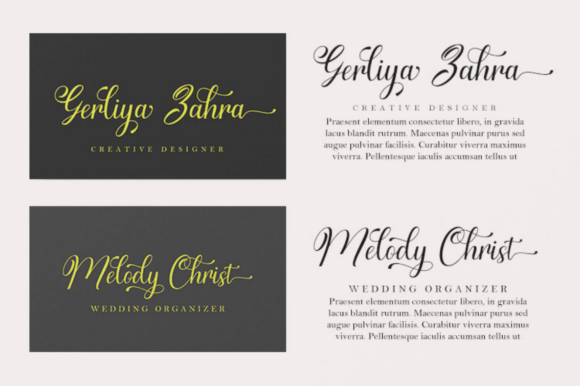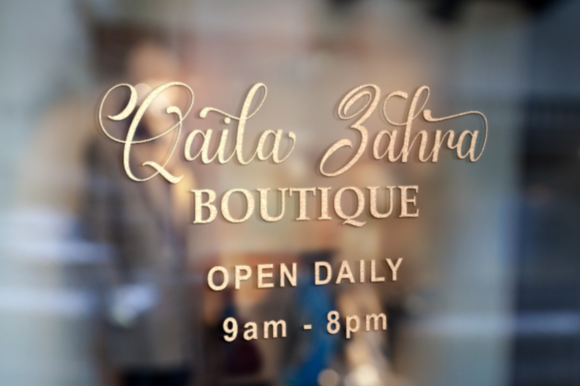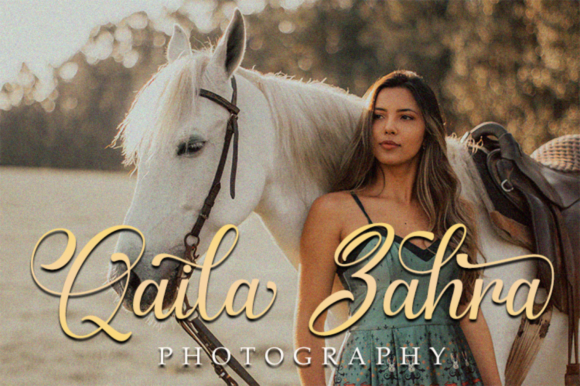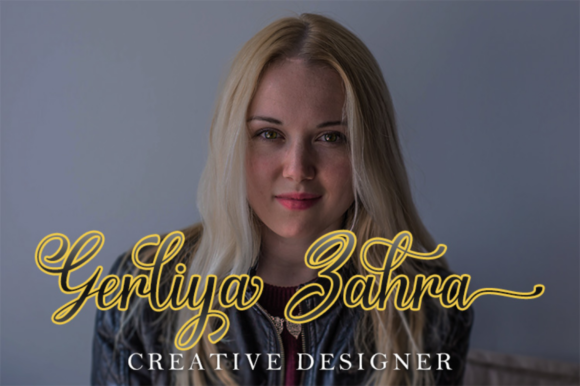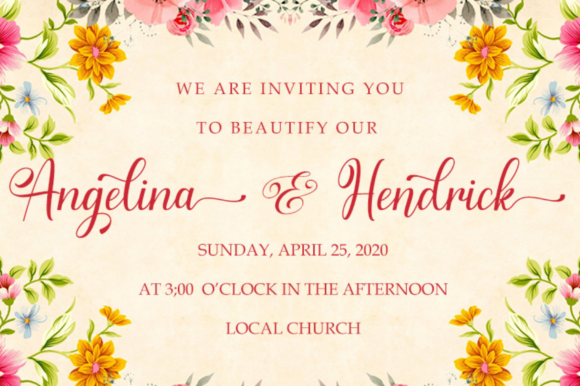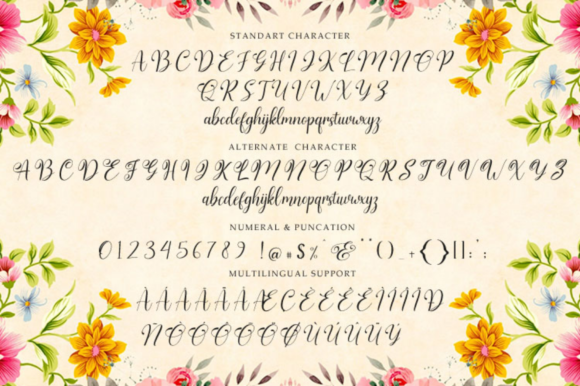
Introducing Gerliya Font: Elevate Your Designs with Timeless Elegance
In the world of typography, a beautiful script font can make all the difference in elevating your designs from ordinary to extraordinary. Gerliya Font is a stunning script font that embodies the perfect blend of classic calligraphy and modern sophistication. Inspired by timeless classic calligraphy, Gerliya Font is designed to bring an air of elegance and refinement to your projects.
The Perfect Balance of Form and Function
Gerliya Font boasts a contemporary atmosphere and impeccable form, making it an ideal choice for designers and crafters seeking to add a touch of sophistication to their work. What sets Gerliya apart is its perfect balance of thickness and thinness, creating a visually appealing and harmonious look. Not too thin and not too thick, Gerliya’s balanced and varied strokes bring a sense of nuance and depth to your designs.
Key Features of Gerliya Font
- Beautiful Script Font: Gerliya Font is a gorgeous script font that exudes elegance and refinement, perfect for a wide range of design applications.
- Contemporary Atmosphere: With its modern take on classic calligraphy, Gerliya Font brings a fresh and contemporary feel to your designs.
- Impeccable Form: Gerliya’s precise and meticulous design ensures that every letter and stroke is perfectly crafted to create a stunning visual effect.
- Balanced and Varied: Gerliya’s balanced and varied strokes add a touch of nuance and depth to your designs, making them more engaging and visually appealing.
Why Choose Gerliya Font?
Gerliya Font is an excellent choice for designers and crafters looking to elevate their designs with a touch of elegance and sophistication. Here are just a few reasons why Gerliya Font stands out:
- Versatility: Gerliya Font is suitable for a wide range of design applications, from branding and advertising to packaging and digital media.
- Easy to Read: Despite its elegant and refined appearance, Gerliya Font remains highly legible, making it perfect for body text and headlines.
- Unique and Distinctive: Gerliya Font’s unique blend of classic and modern elements ensures that your designs stand out from the crowd and leave a lasting impression.
How to Use Gerliya Font in Your Designs
Gerliya Font is incredibly versatile and can be used in a variety of design applications. Here are a few ideas to get you started:
- Branding and Logo Design: Use Gerliya Font to create stunning logos and brand identities that exude elegance and sophistication.
- Wedding and Event Design: Gerliya Font is perfect for wedding invitations, event branding, and other celebratory designs where elegance and refinement are paramount.
- Packaging Design: Add a touch of luxury and sophistication to your packaging designs with Gerliya Font.
In conclusion, Gerliya Font is a beautiful script font that brings a touch of timeless elegance and sophistication to your designs. With its perfect balance of form and function, Gerliya Font is an excellent choice for designers and crafters seeking to elevate their work. Whether you’re looking to create stunning logos, elegant wedding invitations, or luxurious packaging designs, Gerliya Font is the perfect choice.